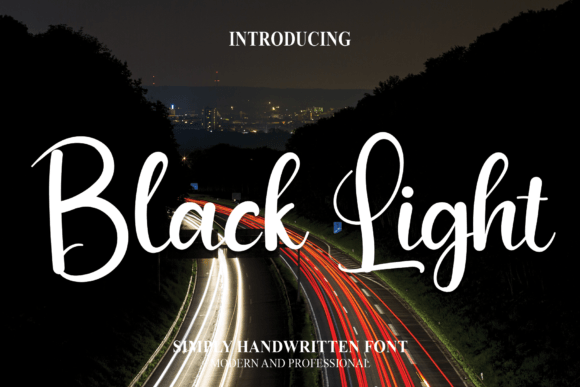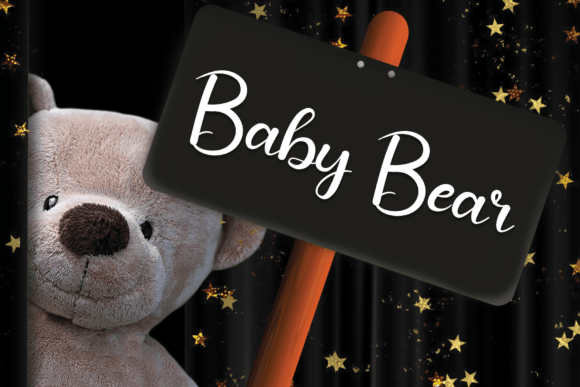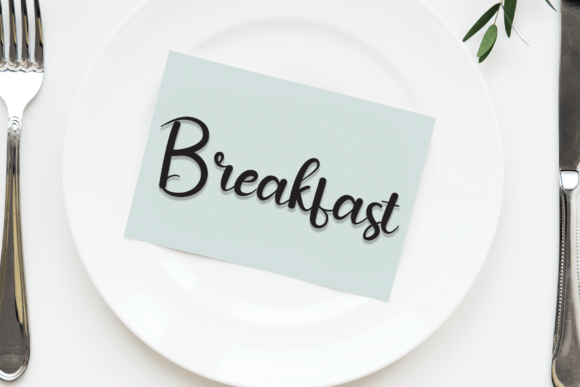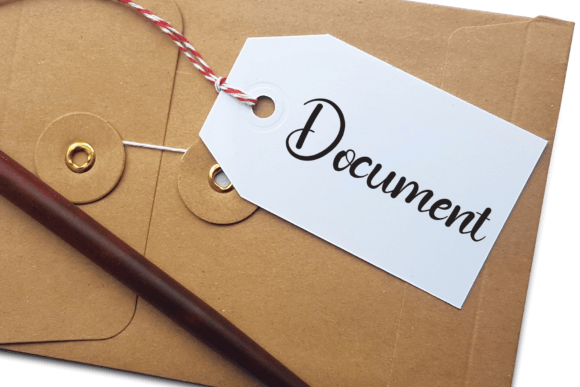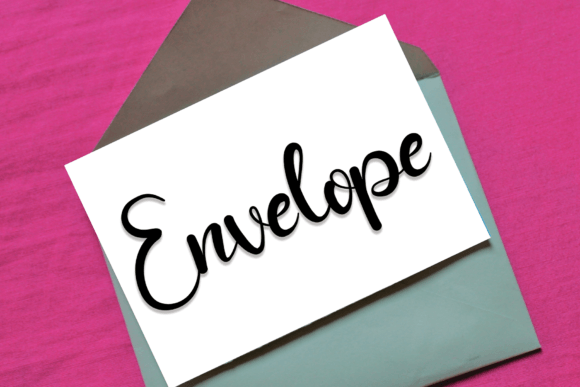
Black Light Font
Black Light Handwritten Font – Fun and Friendly Typeface
The Black Light Handwritten Font is a playful and inviting script typeface designed to bring joy and character to your creative projects. With its casual handwritten strokes and friendly design, it works beautifully across both print and digital applications. Whether you are creating greeting cards, logos, or posters, this font ensures your designs feel approachable and stylish.
A Script with Playful Personality
The Black Light Handwritten Font blends smooth handwritten curves with a lighthearted feel. Its fun strokes make it ideal for casual projects, while its clarity ensures usability in professional contexts. Because of this, it adapts seamlessly to both everyday crafts and branding projects.
Perfect for Greeting Cards and Crafts
One of the best uses of the Black Light Handwritten Font is in greeting cards and DIY crafts. Its cheerful handwritten flow adds warmth to invitations, thank-you notes, and seasonal designs. At the same time, it works wonderfully in posters, digital artwork, and social media graphics, where a personal handwritten touch makes all the difference.
The Black Light Handwritten Font adapts beautifully to a wide range of applications. From product packaging and logos to event posters and digital content, it provides a handwritten charm that feels both modern and friendly. Its versatility ensures that it fits comfortably in both personal and commercial projects.
Why Designers Love Black Light Font
Designers appreciate the Black Light HandwrittenFont because it balances fun with usability. Its friendly details make it unique, while its clean readability keeps it practical. This blend of creativity and professionalism makes it a must-have font for creative toolkits.
In summary, the Black Light HandwrittenFont is a fun, friendly, and versatile script typeface. With its casual handwritten strokes, easy installation, and broad usability, it is perfect for greeting cards, posters, logos, and crafts. Don’t miss the chance to download Black Light HandwrittenFont and add a joyful handwritten touch to your next design project.